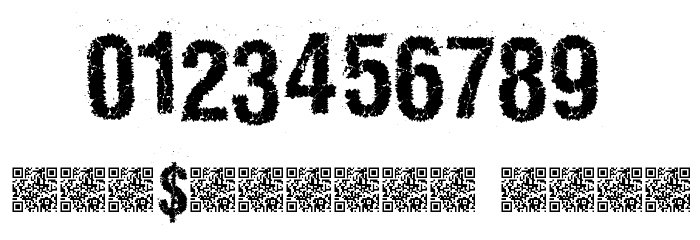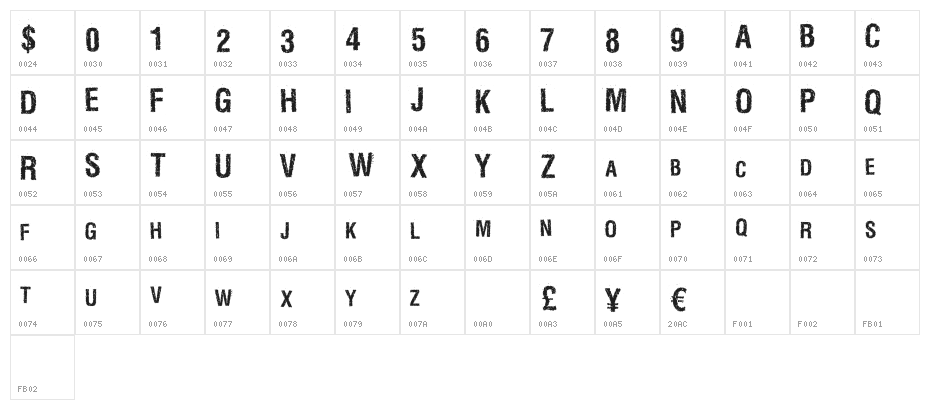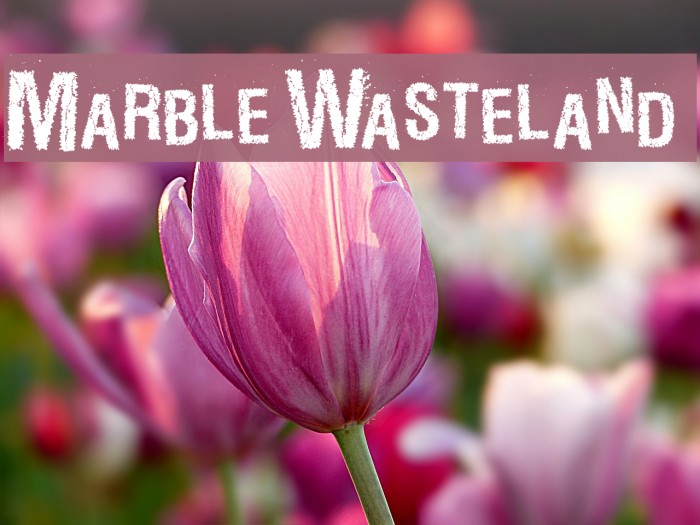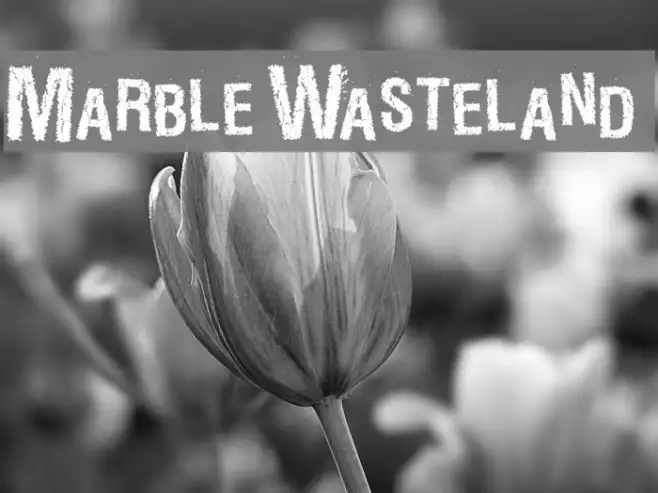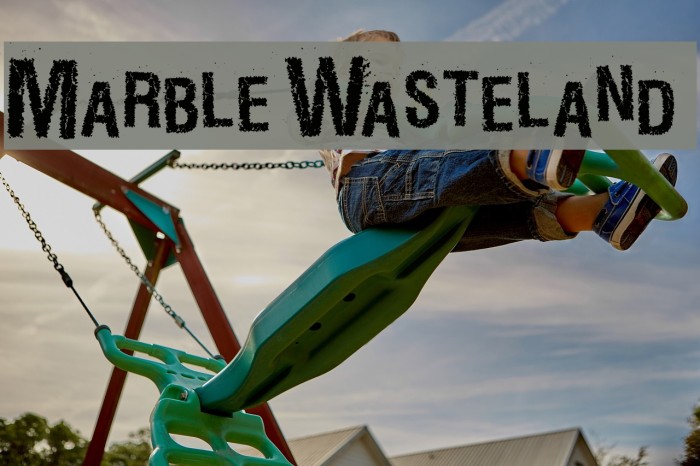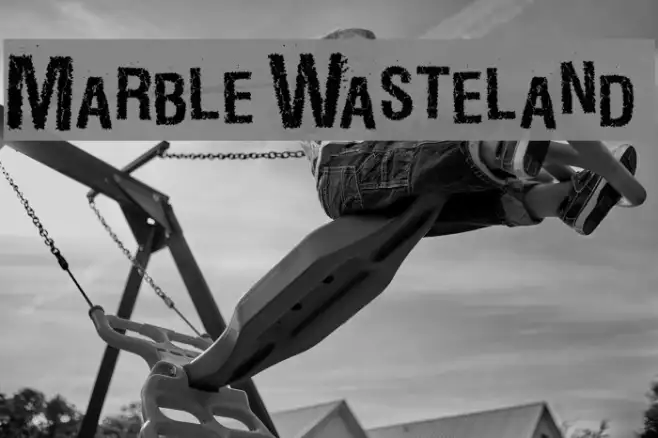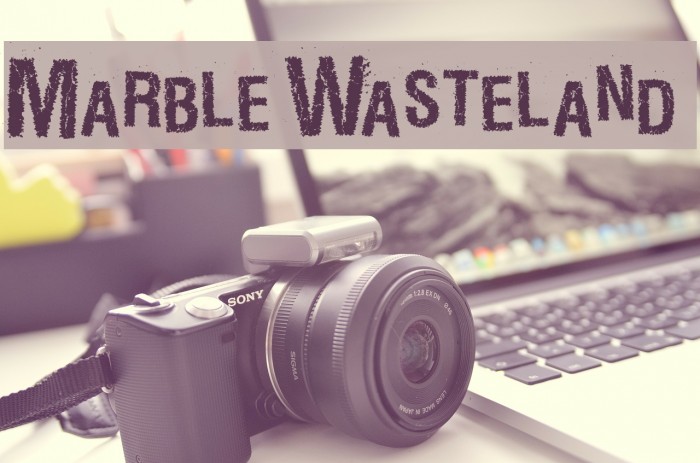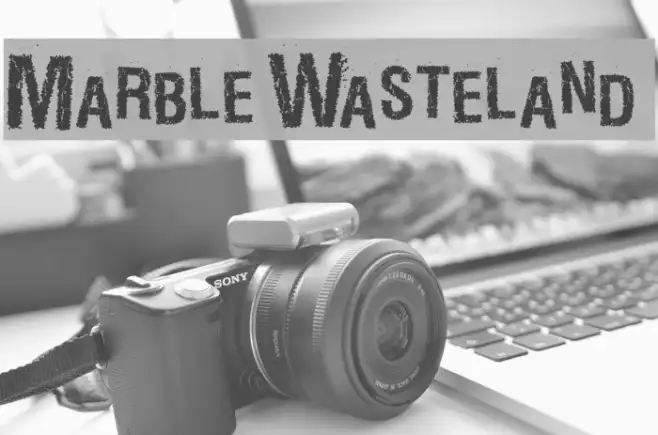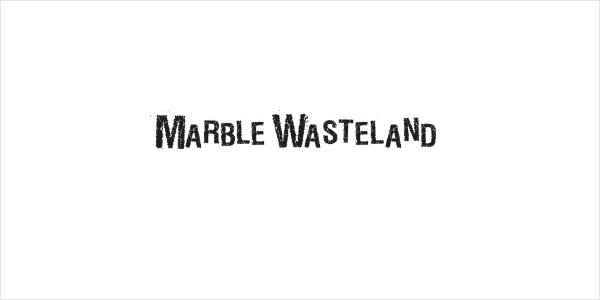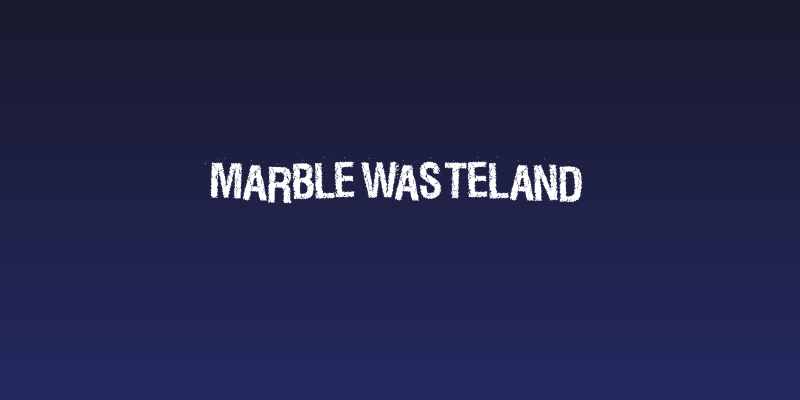
MarbleWasteland Font
MarbleWasteland Description
This font features a distressed, textured appearance that gives it a rugged and worn look, reminiscent of eroded stone or weathered surfaces. The characters are bold and impactful, with a rough, uneven edge that adds to its unique, gritty style. The uppercase and lowercase letters maintain a consistent design, while the numbers and special characters follow the same textured theme. This font's distinctive style makes it stand out, ideal for projects that require a bold statement or an edgy, artistic touch.
| Proposed Projects | Ideal for album covers, posters, branding for edgy or alternative products, and any design needing a bold, gritty aesthetic. |